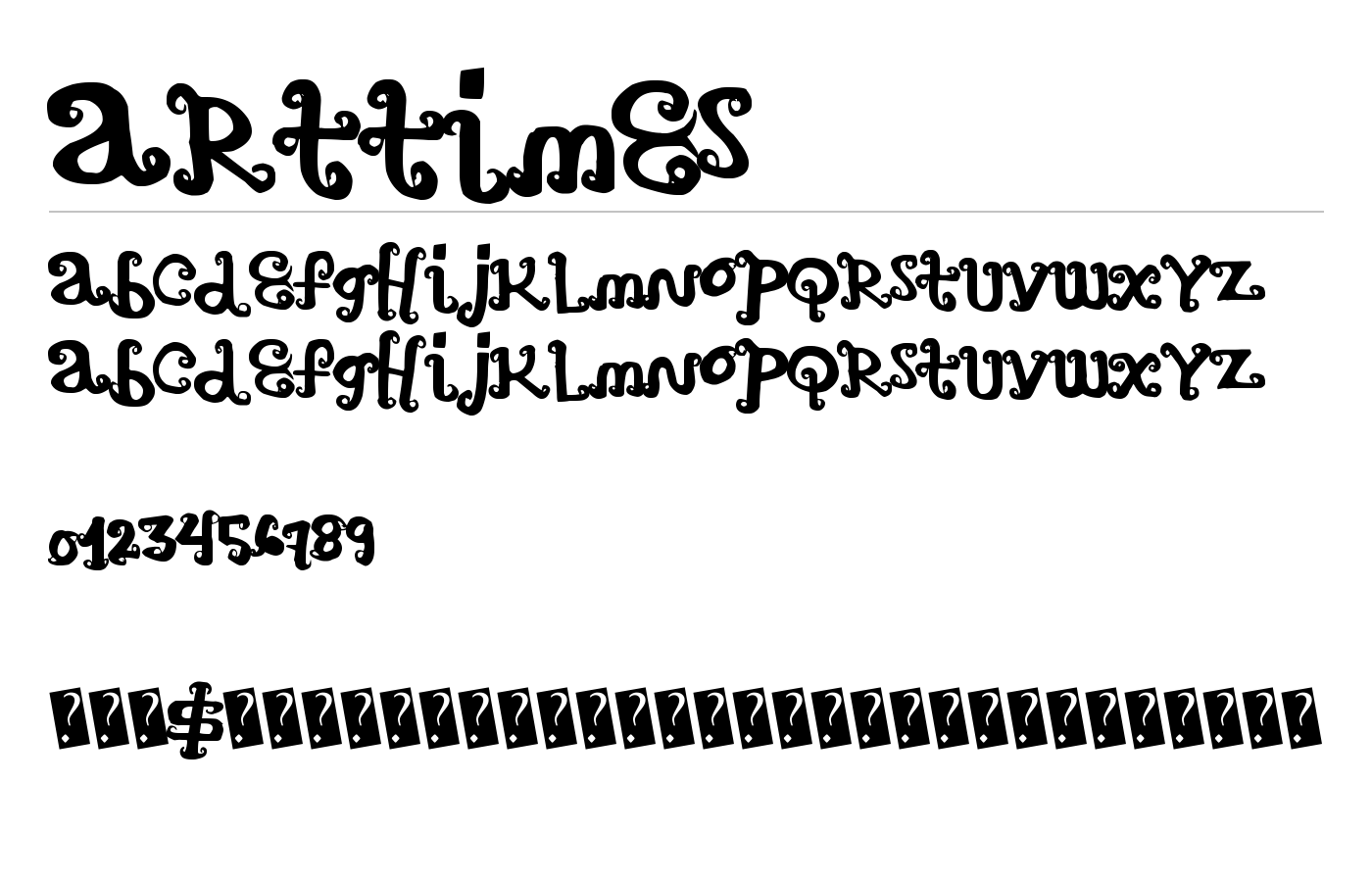
ArtTimes is a whimsical, decorative serif font with playful, curly terminals that give it a quirky and artistic flair. Its bold weight and unique letterforms make it ideal for creative projects, fun headlines, or eye-catching display text where a lively and unconventional personality is desired. Perfect for branding, posters, or invitations that want to stand out with a distinctive, hand-crafted feel.
ArtTimes Font
About ArtTimes Font
| Font family | ArtTimes Font |
| Designer | Max Infeld |